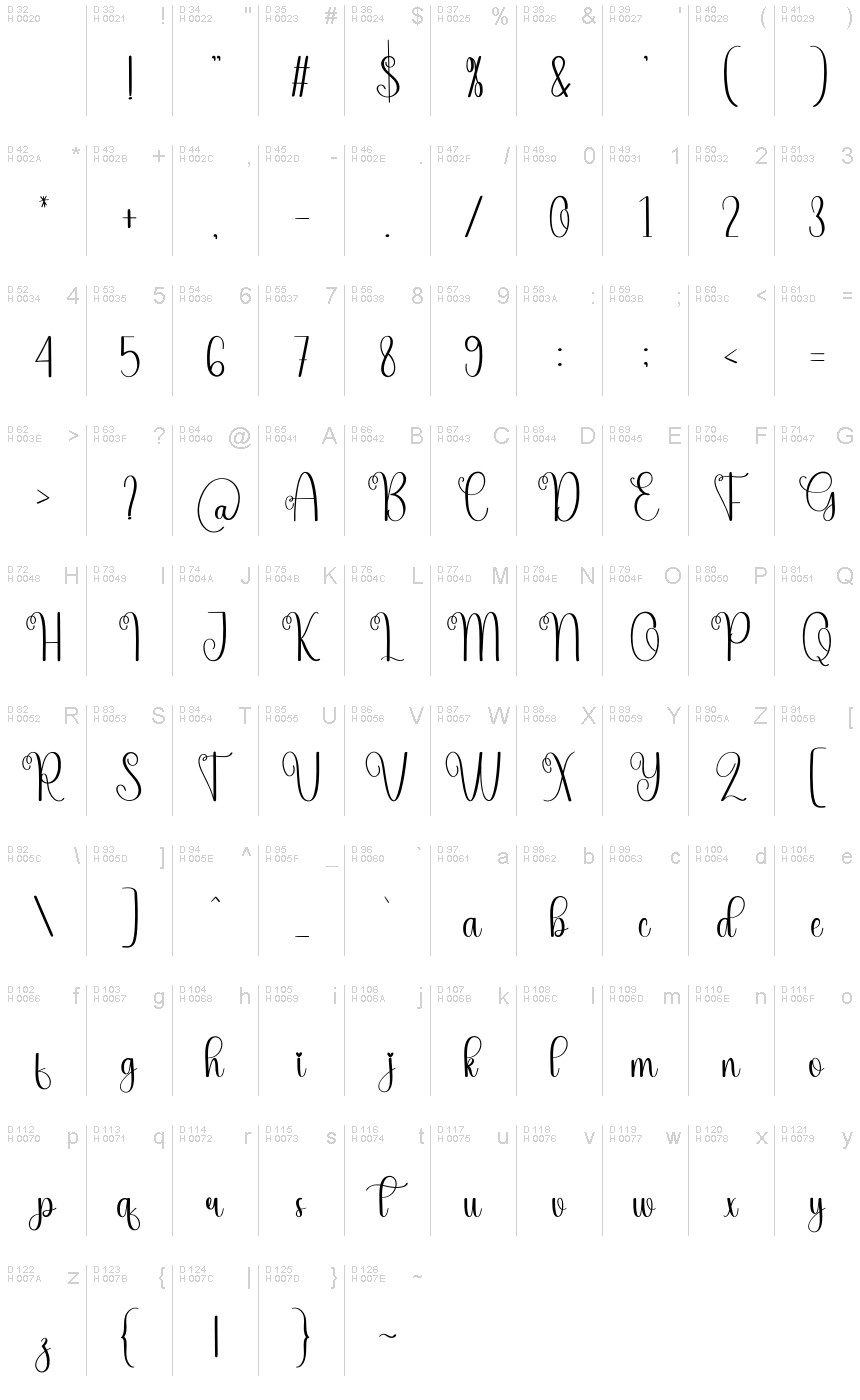
Offline
Offline is a captivating calligraphic font that exudes elegance and sophistication. Designed by Andi Moz, this light-weight typeface boasts a fluid, handwritten aesthetic that lends a touch of artistry to any design.
The sweeping, interconnected letterforms create a sense of movement and fluidity, making Offline an ideal choice for wedding invitations, luxury branding, and editorial layouts. Its versatility shines through in its ability to convey both formal and casual moods, making it a versatile tool for designers seeking to elevate their visual communication.